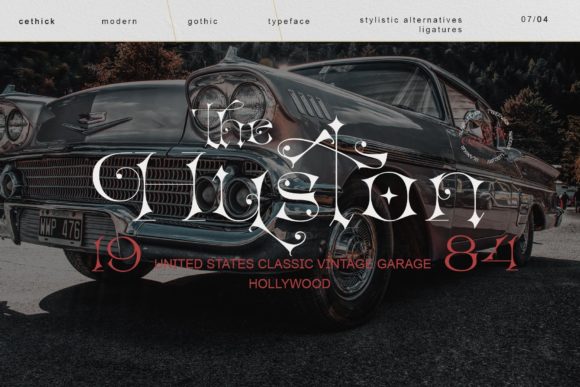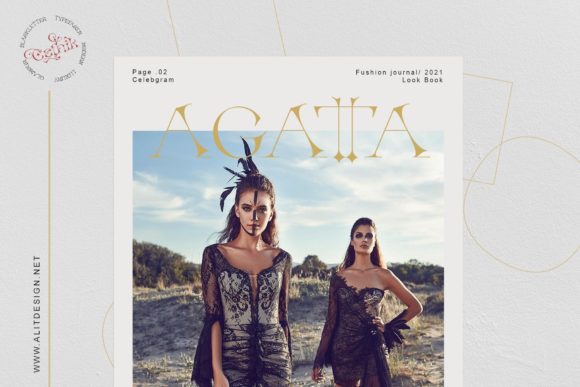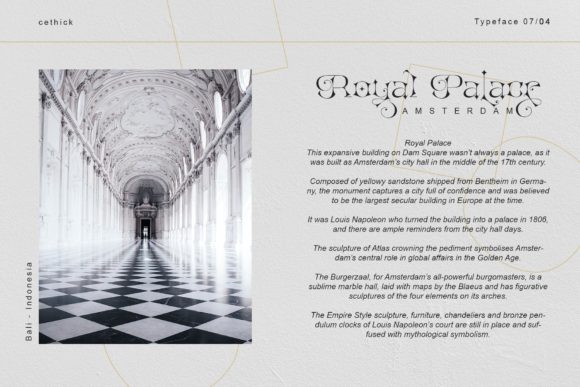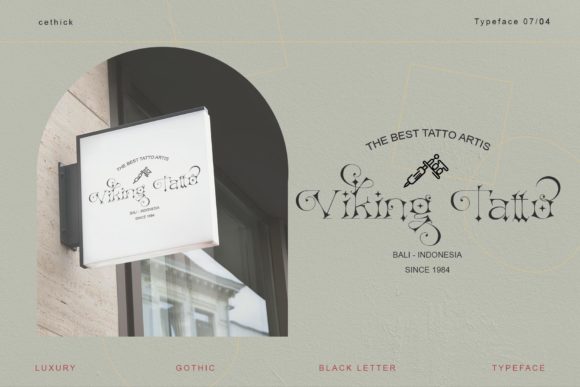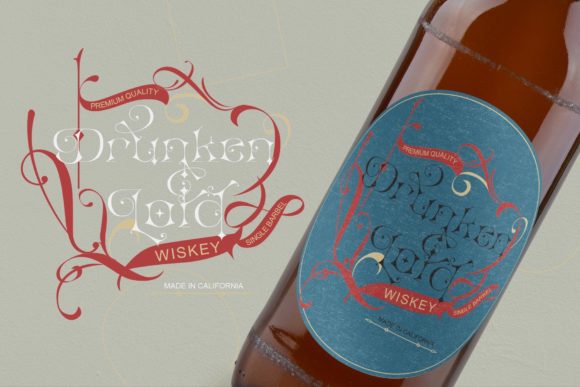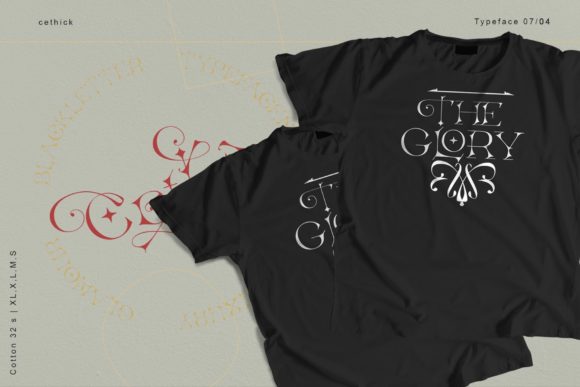
The Cethik Font: A Designer’s New Best Friend
I’ll never forget the time I was working on a project for a client who wanted a bold, eye-catching font to make their brand stand out. I spent hours scouring the internet for the perfect font, but nothing seemed quite right. That was until I stumbled upon the Cethik font. This incredibly cool and genuine display font has been a game-changer for my design work, and I’m excited to share it with you. ✨
An Honest Review of Cethik
- ✨ Highly detailed and neatly crafted design: Cethik’s intricate details and clean lines make it a joy to use in any design project.
- ✅ PUA encoded for easy access to glyphs and swashes: The font’s PUA encoding means you can easily access all the glyphs and swashes, making it simple to add a personal touch to your designs.
- 💥 Perfect for display text and headlines: Cethik’s bold and eye-catching design makes it ideal for use in display text and headlines.
While Cethik is an amazing font, there are a few things to keep in mind. ⚠️ Some users may find that the font’s intricate details can make it difficult to read at smaller sizes. Additionally, the font’s bold design may not be suitable for body text or longer blocks of text.
🤔 One thing to note is that Cethik is a display font, so it’s best used sparingly to add emphasis and visual interest to your designs.
The Backstory of Cethik
Cethik was designed by a team of typographers who wanted to create a font that was both bold and elegant. The font’s intricate details and clean lines make it perfect for use in display text and headlines. According to the designers, Cethik was inspired by traditional calligraphy and lettering techniques.